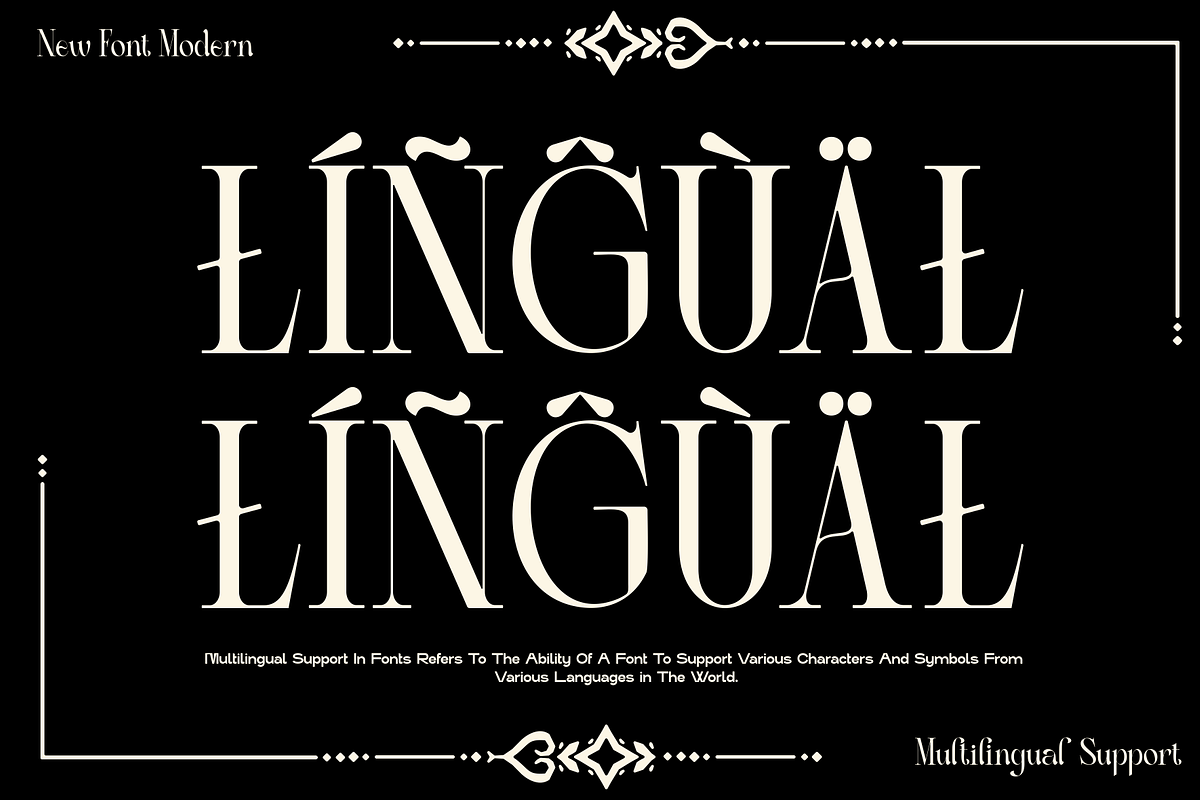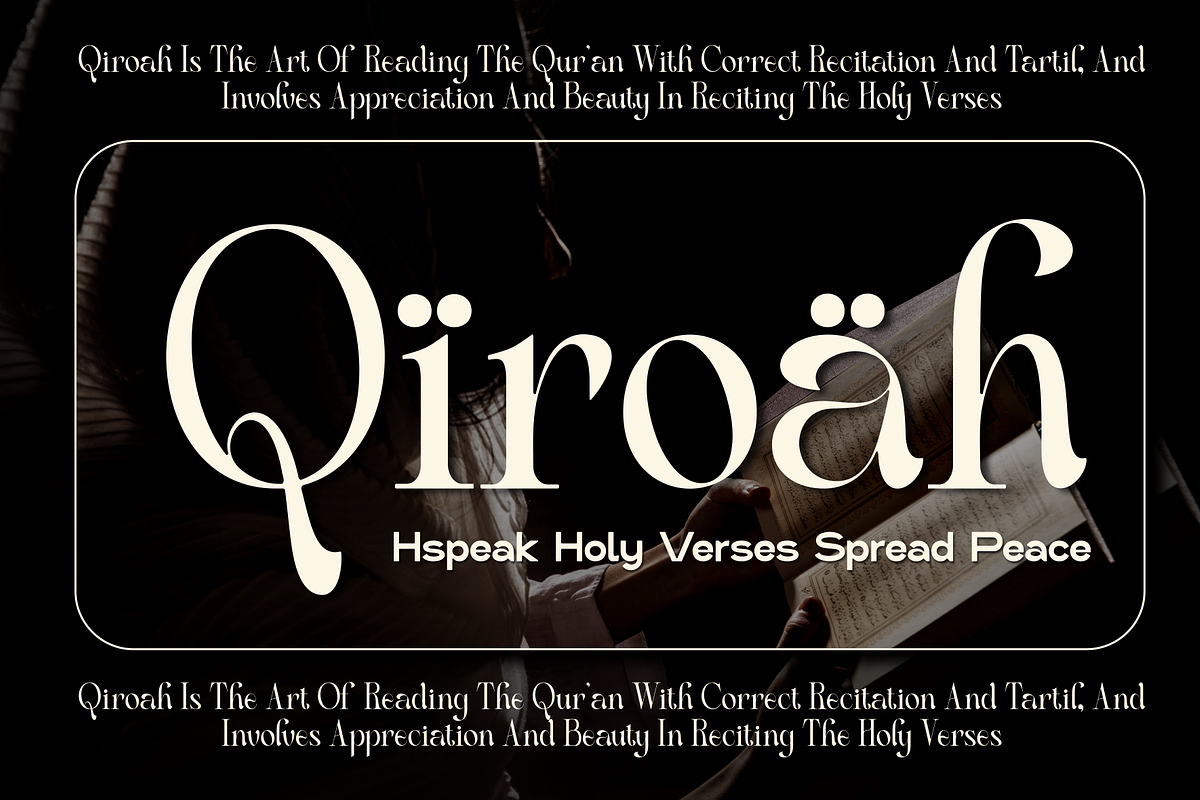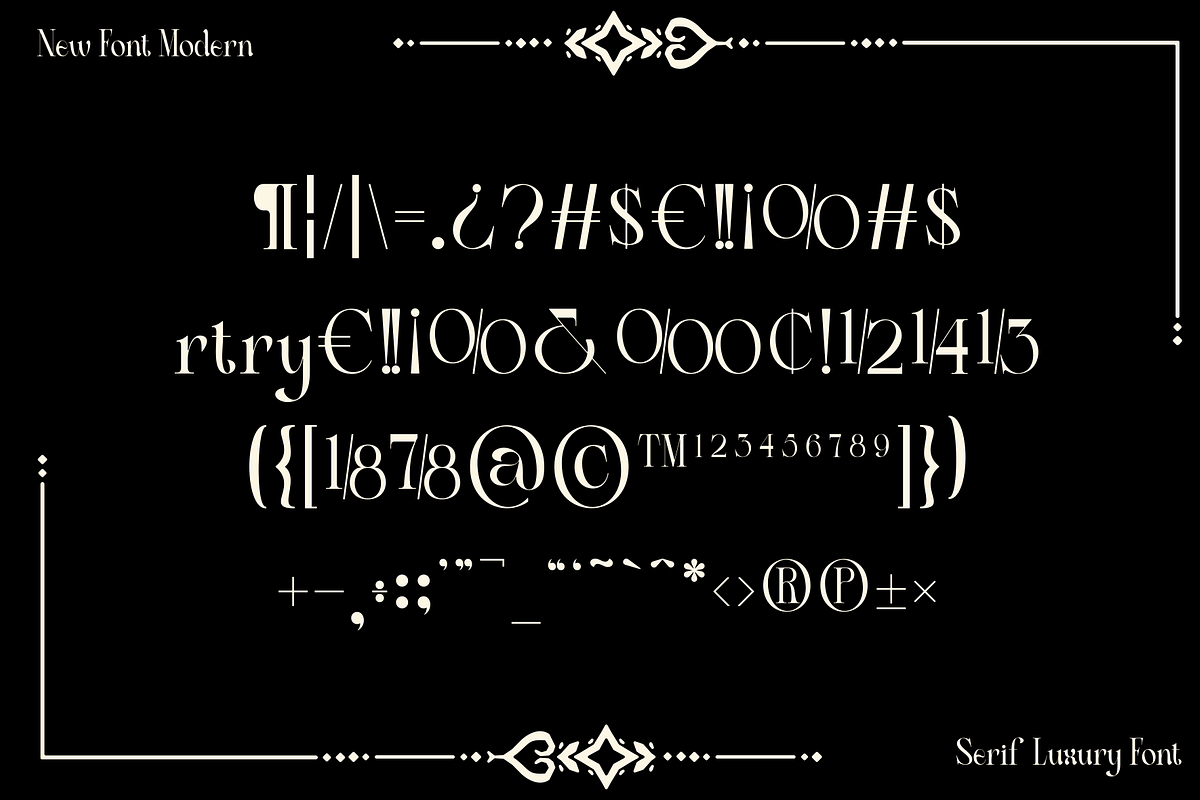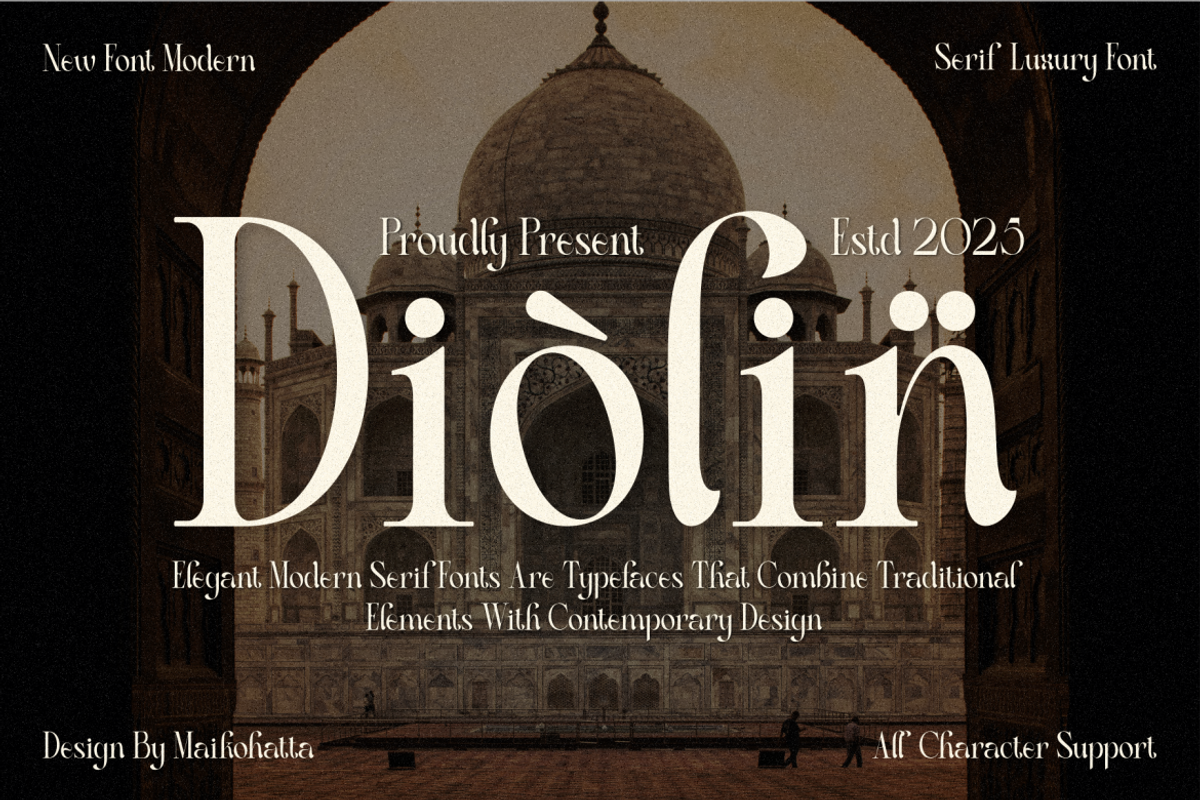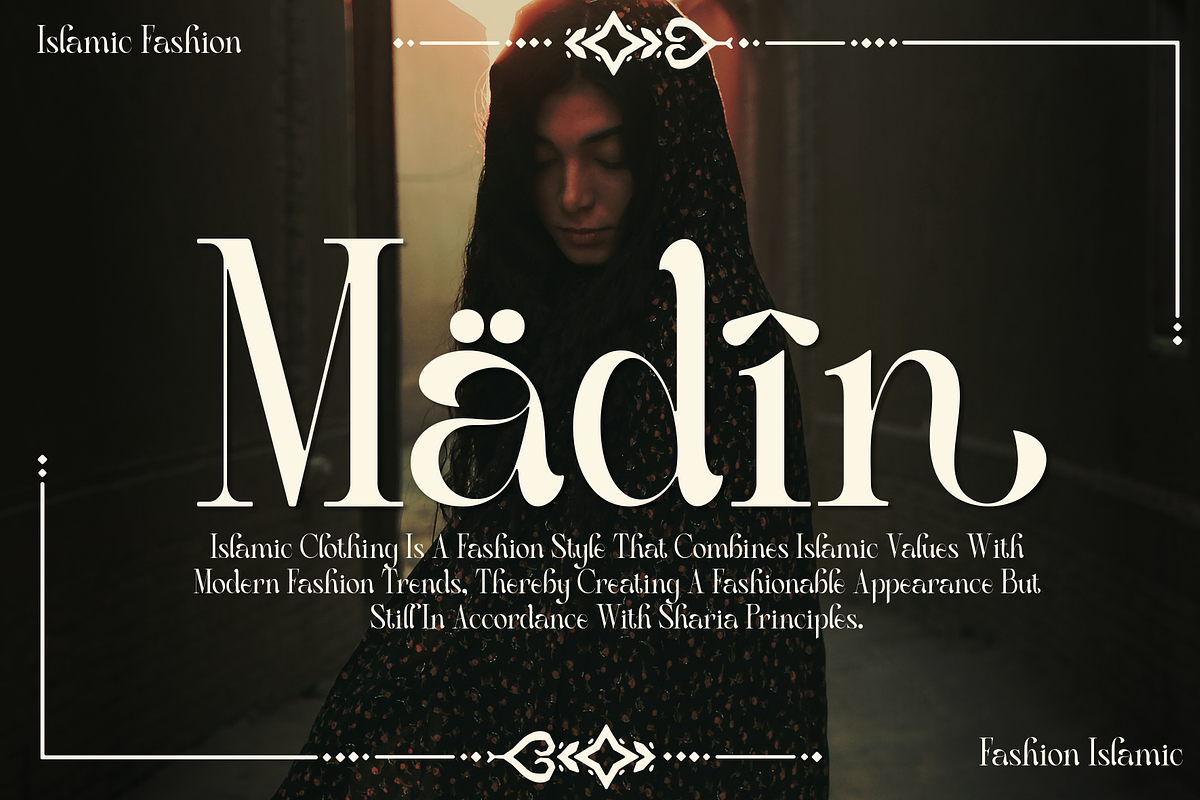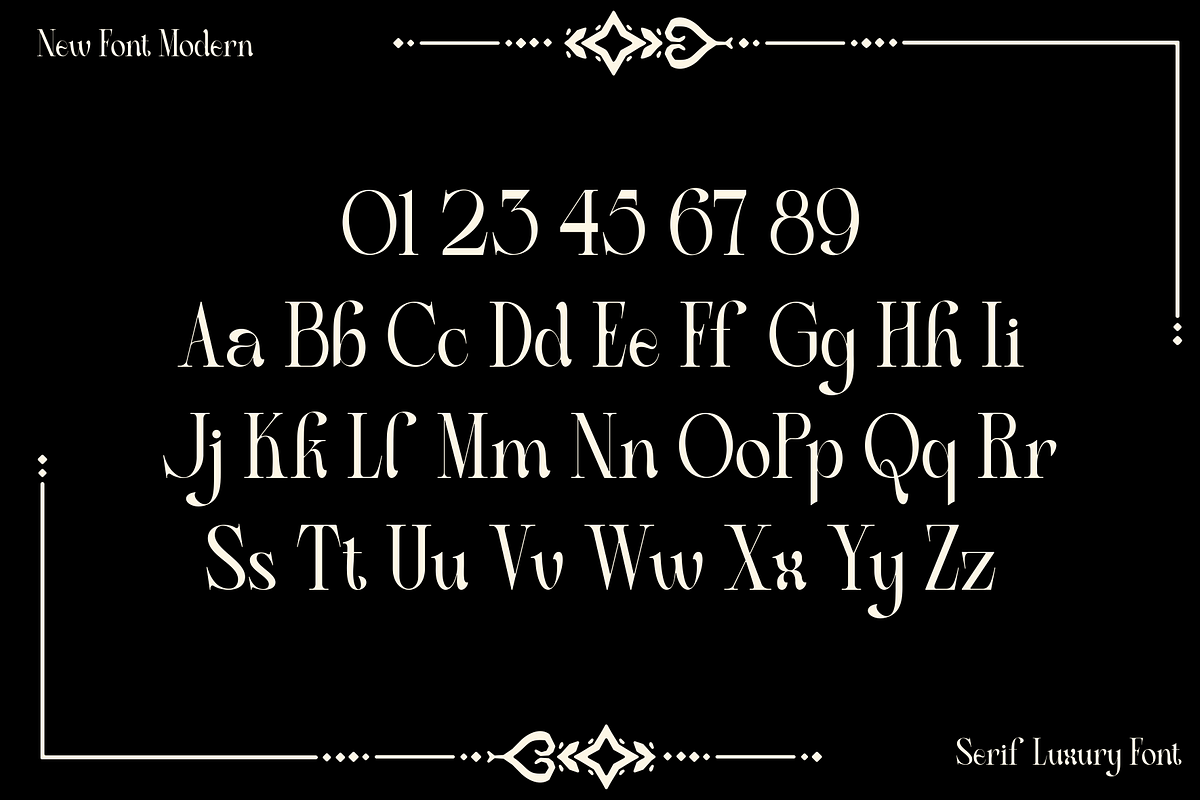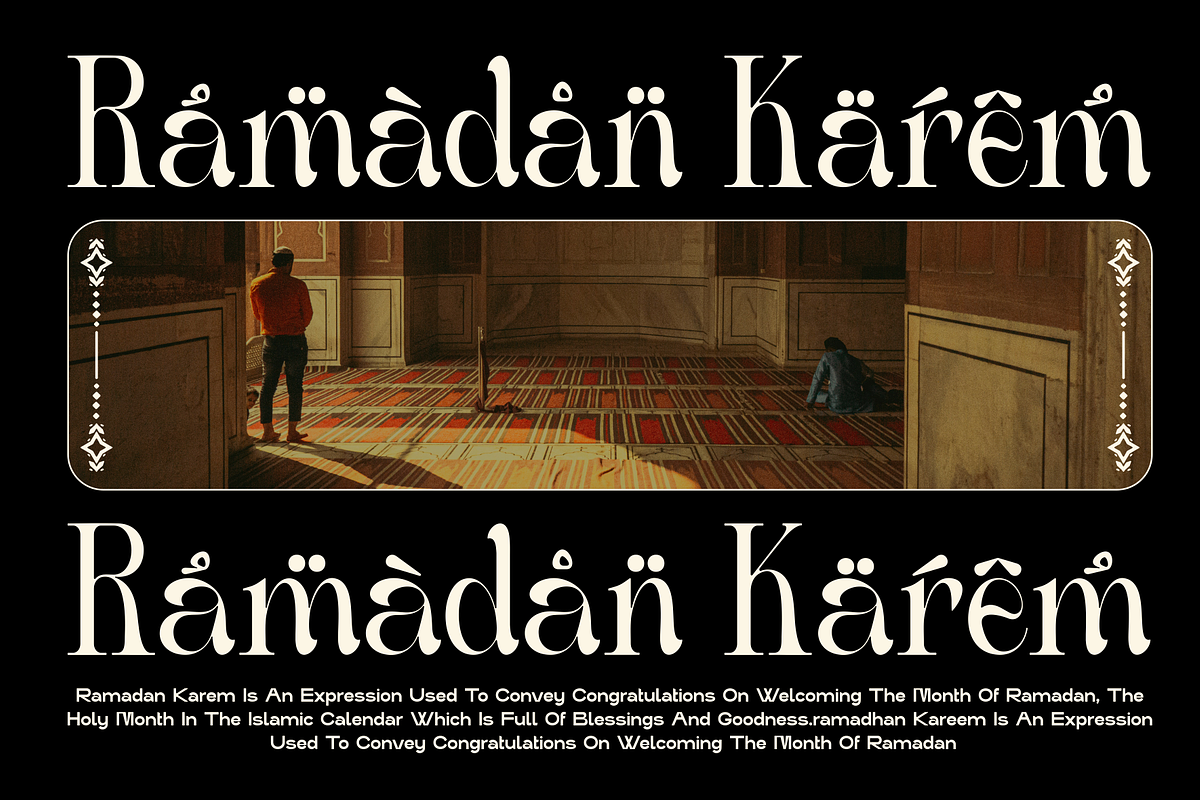
Diolin - Modern Luxury Serif
Introducing our new product Diolin - Modern Luxury Serif
This font features a balanced proportion of stroke thickness and fineness, creating attractive and easy-to-read visuals. This modern serif style is often characterized by a bold distinction between thick and thin lines, providing a touch that is understated but still stands out.